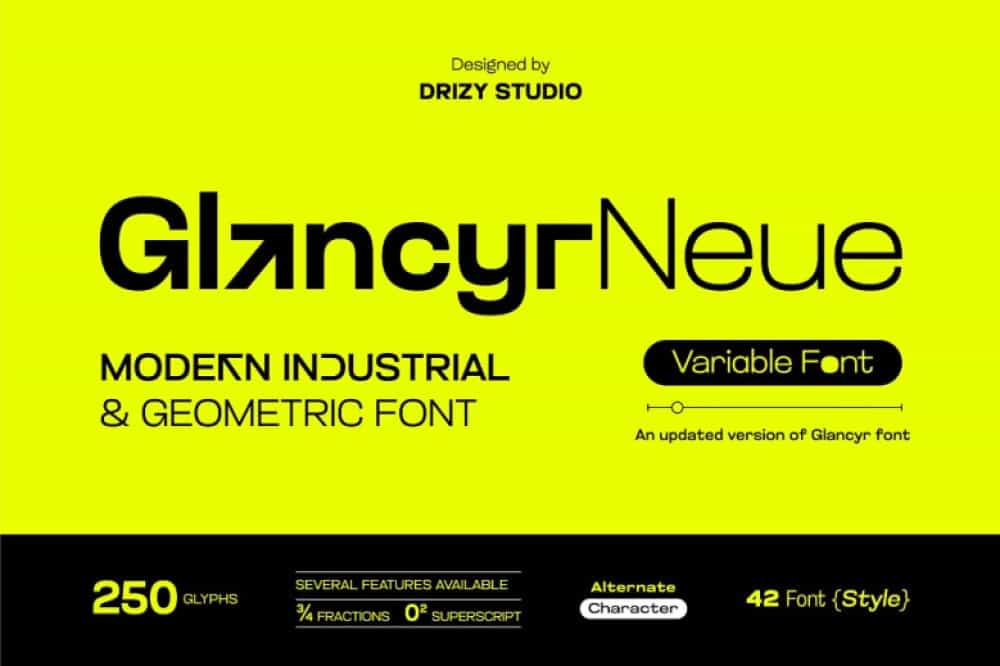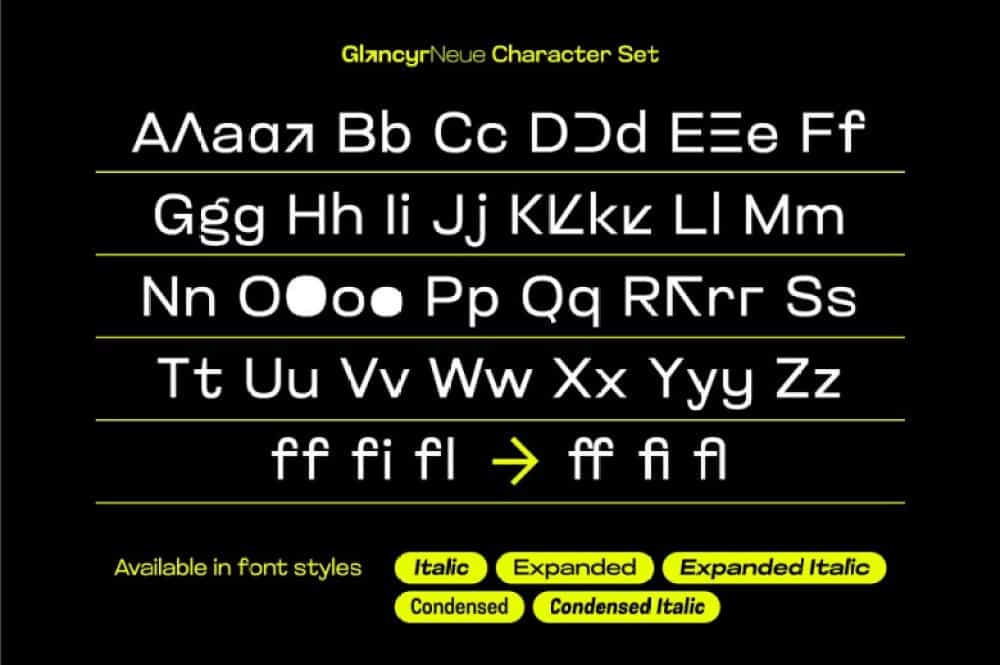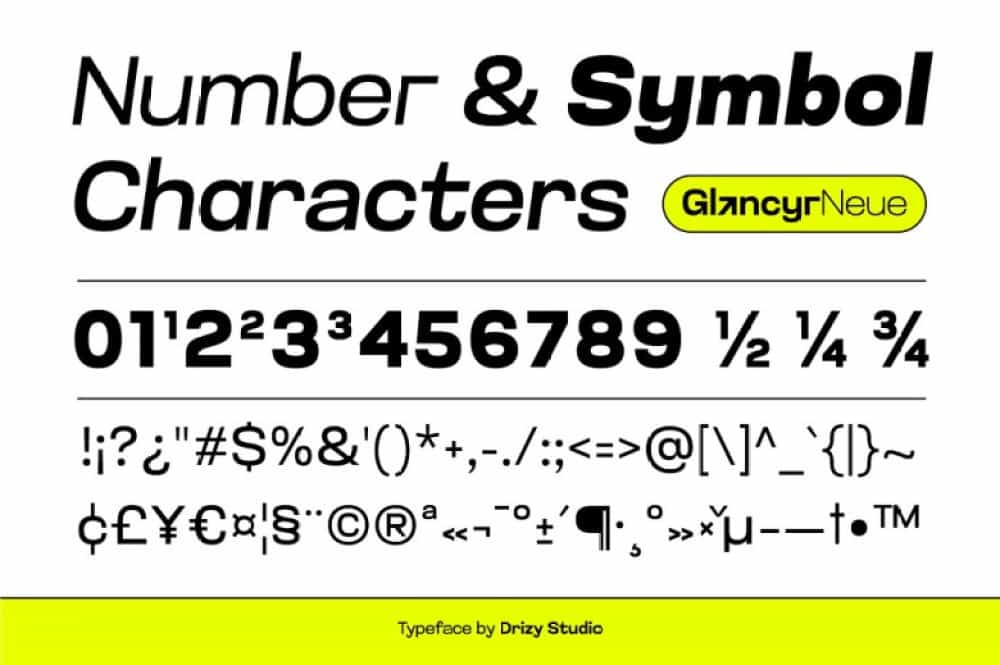
Glancyr Neue is a free modern industrial geometric typeface that is perfect for your graphic designs. Boasting thin lines and clean designs, Glancyr Neue is an ultra-modern sans-serif typeface that is also extremely powerful. Another font that can be distinguished by its thin lines and the geometrical figures used is the one that fits the modern approach to design.